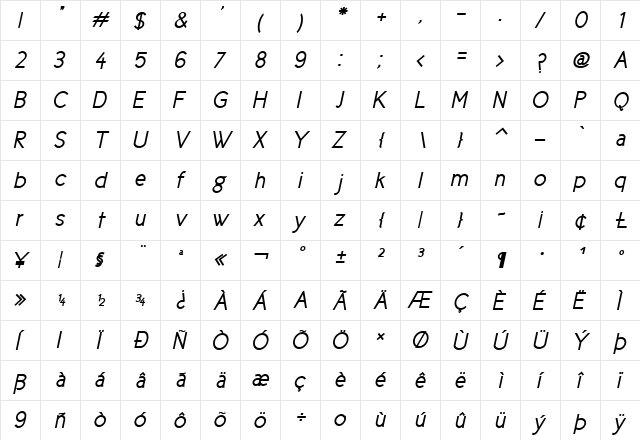
Cicle Gordita Italic
| Foundry | La Tipomatika |
| Designer | La Tipomatika (Digital Type Foundry) |
Design Context for Cicle Typeface
Cicle offers clean, dependable letterforms without strong stylistic allegiance, making it a practical choice for designers who need flexibility. The dynamic lean of this cut emphasises speed and emphasis in any layout.
Pro Tip: Try Cicle for annotation and caption copy alongside an upright companion — the contrast in angle creates a dynamic but ordered typographic system.